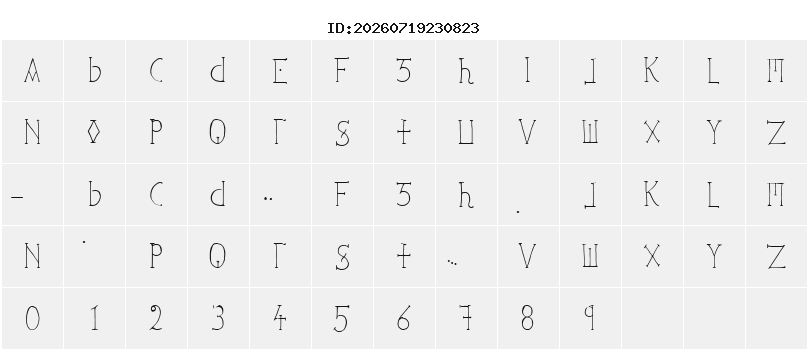
Ephotical Preview
• Font Name: Ephotical
• Font ID: Macromedia Fontographer 4.1.5 Ephotical
• Full Font Name: Ephotical
• Version: Macromedia Fontographer 4.1.5 9/12/01
• PostScript Name: Ephotical
• Character Count: 250
About Ephotical.ttf
Ephotical.ttf is a modern, elegant sans-serif font designed for ultimate readability and visual harmony. Perfect for branding, headlines, web design, and print materials.